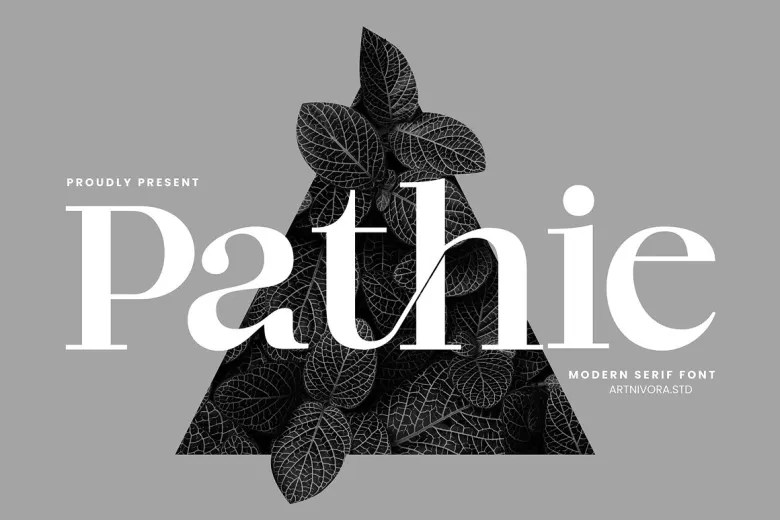
Pathie Font
Pathie is an elegant serif font that effortlessly blends modern sophistication with classic design. This font features clean lines and a refined aesthetic, making it the perfect choice for a wide range of design projects. Whether you’re working on logos, branding, invitations, or editorial layouts, Pathie adds a touch of sleek elegance that elevates the overall look of your work.
Key Features of Pathie:
• Modern Elegance: Pathie is designed with a modern twist on traditional serif fonts, giving your designs a contemporary yet timeless appeal. Its clean lines and balanced letterforms ensure that your text looks polished and professional.
• Versatile and Readable: The flexibility of Pathie makes it suitable for various design applications. Its clear, readable characters make it ideal for both print and digital projects, ensuring that your message is conveyed effectively.
• Stylish Typography: Pathie offers a sophisticated appearance that enhances the visual appeal of your typography. Whether used for headlines, body text, or decorative elements, this font provides a stylish, cohesive look that stands out.
Ideal Uses for Pathie:
• Branding and Logos: Create distinctive and elegant brand identities with Pathie. Its refined serif design lends a professional and upscale vibe to logos and branding materials.
• Editorial and Print Design: Pathie is perfect for use in magazines, books, brochures, and other print materials. Its legibility and classic style make it an excellent choice for editorial layouts that require a modern yet sophisticated touch.
• Invitations and Stationery: Add a touch of elegance to wedding invitations, business cards, and other stationery items with Pathie. Its elegant serif design ensures that your print materials exude class and refinement.
• Web Design and Digital Media: Pathie‘s clean and modern design makes it ideal for use in websites, social media graphics, and digital ads. Its stylish appearance helps you create visually appealing digital content that captures attention.